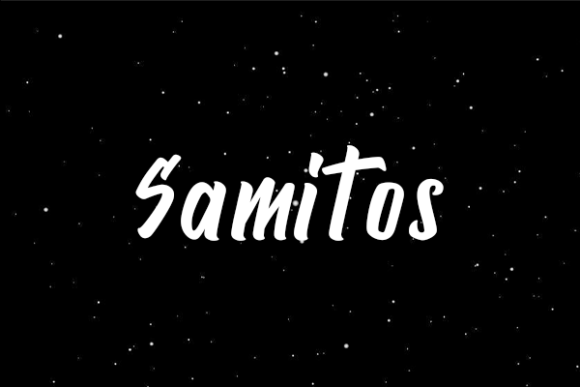
Samitos Font
Introducing Samitos Font, the ultimate script font for designers seeking elegance and individuality. This captivating typeface is your key to unlocking limitless creative possibilities, allowing you to craft logos, branding, and quotes that leap off the page.
Samitos Font is more than just a collection of letters; it's an invitation to embark on a typographic adventure. Each meticulously crafted glyph possesses a unique and enchanting touch, breathing life into your designs and igniting a spark of inspiration.
With its PUA encoding, Samitos Font empowers you to effortlessly access a treasure trove of stunning glyphs and ligatures. Unleash your imagination and explore the endless combinations to create designs that captivate, inspire, and leave a lasting impression.
Whether you're a seasoned designer or a budding enthusiast, Samitos Font is the perfect companion for your creative endeavors. Its versatility extends across a vast spectrum of projects, from sophisticated logos to heartfelt quotes.
Embrace the beauty of Samitos Font today and elevate your designs to new heights. Let its graceful curves and enchanting details transform your vision into a masterpiece that resonates with audiences and leaves an enduring legacy.